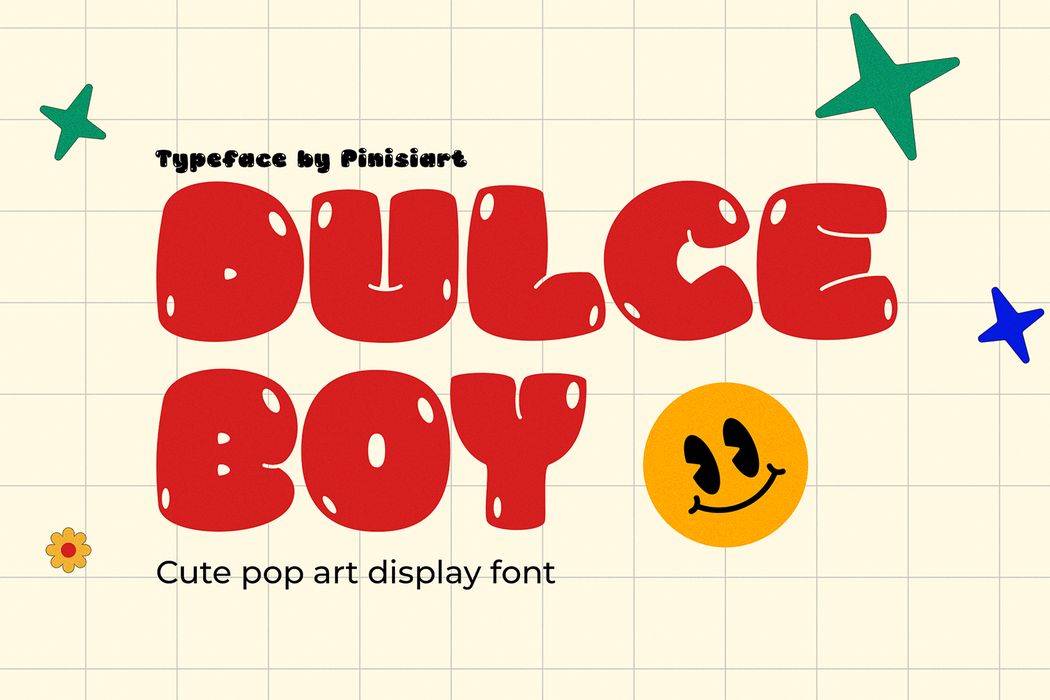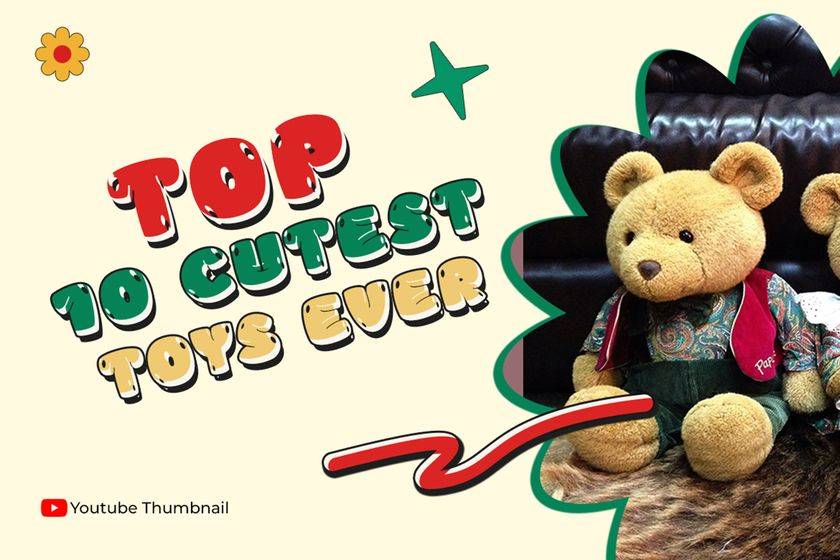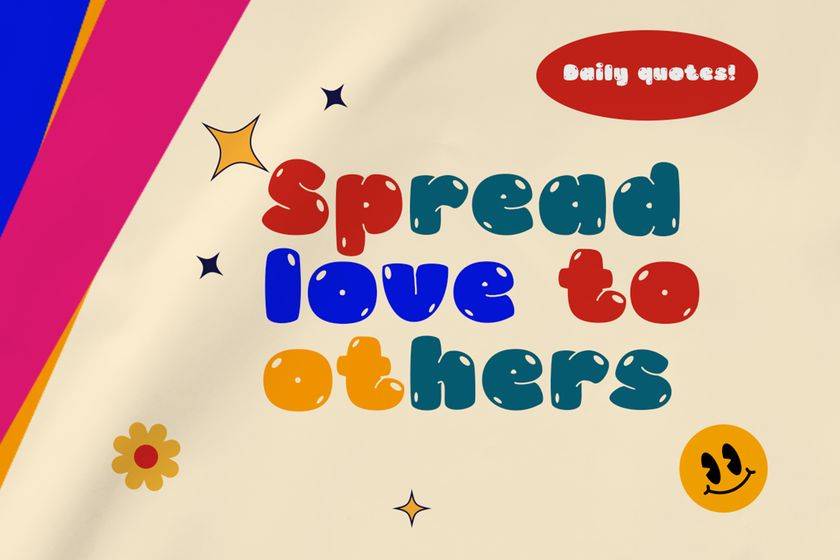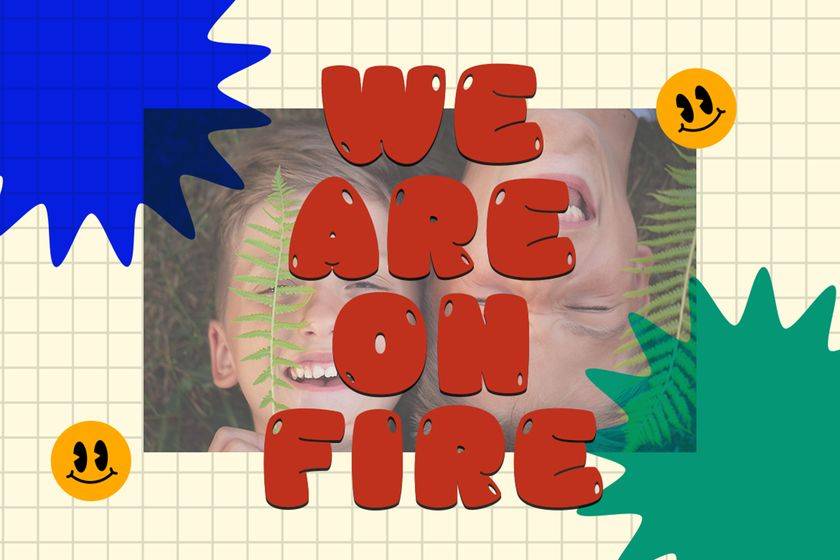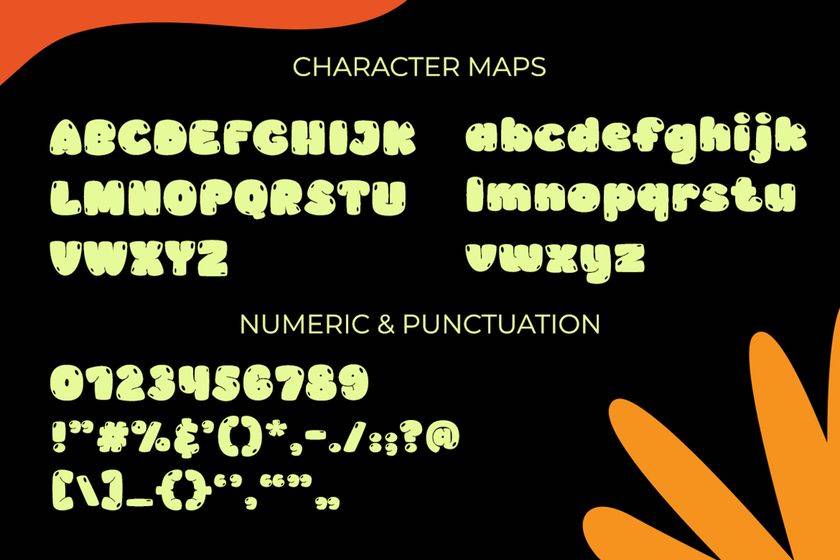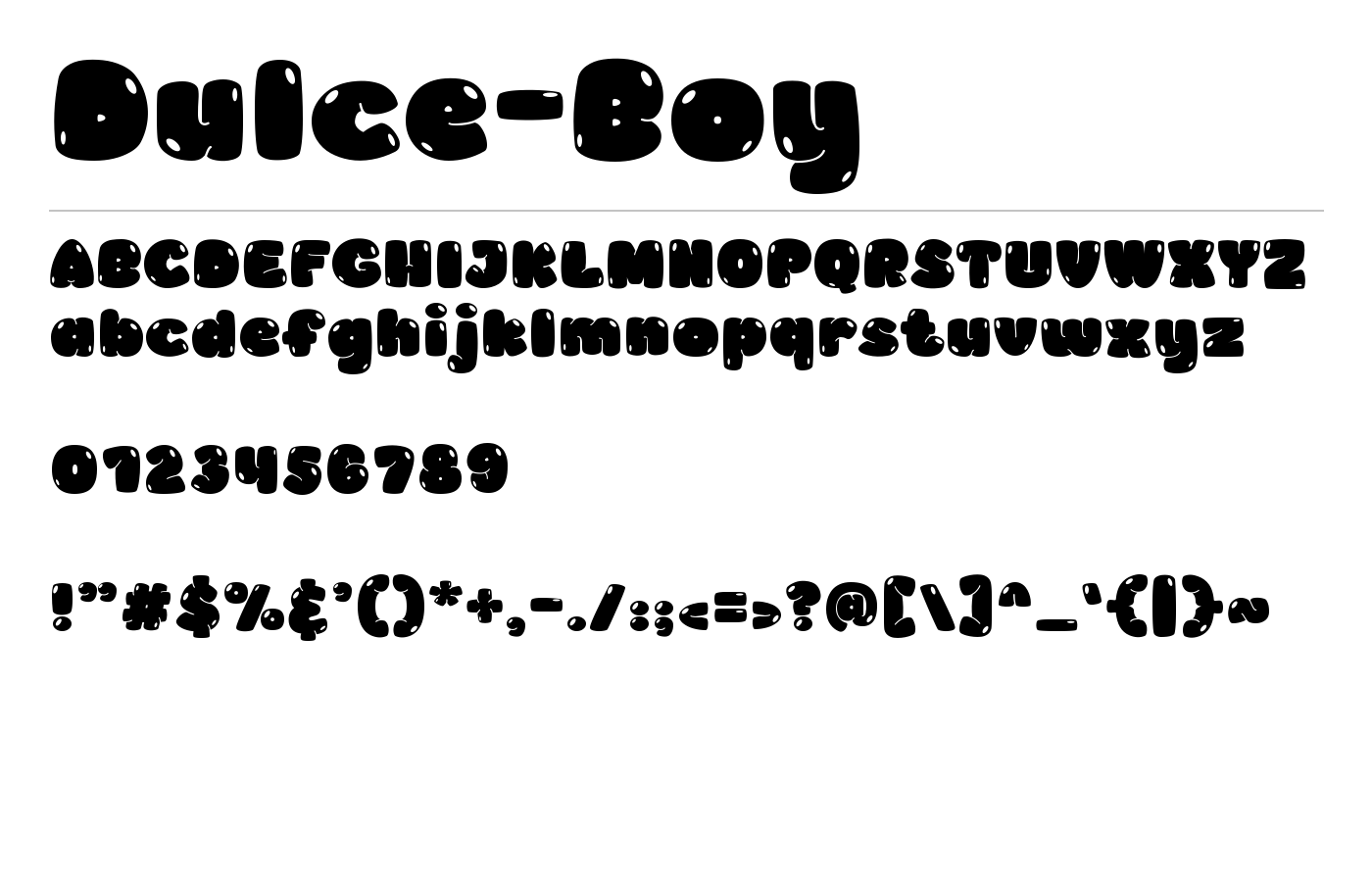
Dulce Boy is a playful, bold display font with rounded, chunky letterforms that create a friendly and approachable vibe. Its thick strokes and whimsical shapes make it perfect for fun, casual branding, children's projects, and creative headlines where a lively and informal feel is desired. This font works best in large sizes, bringing energy and charm to logos, posters, and packaging designs.
Dulce Boy Font
About Dulce Boy Font